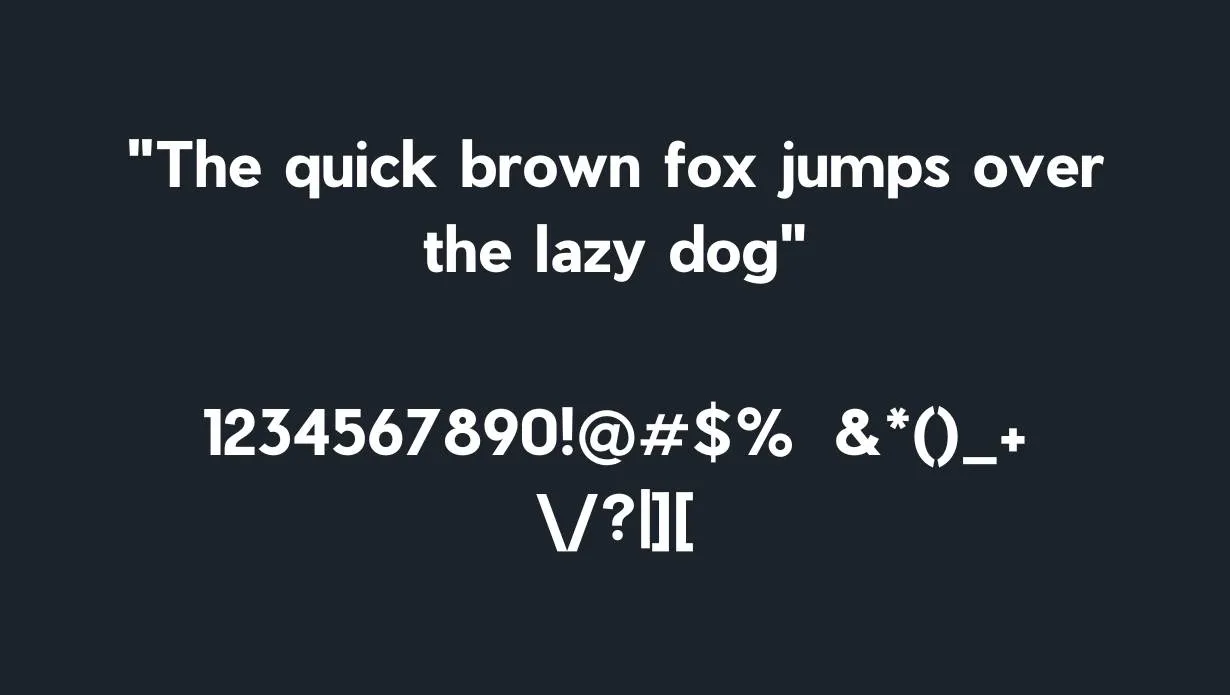
The Pier Sans Font boasts a modern and clean aesthetic, making it versatile for a range of design projects. Its straightforward characters offer readability, suitable for websites, brochures, or any project requiring clarity and simplicity.
| Name | Pier Sans Font |
| Designer | Mat Desjardins |